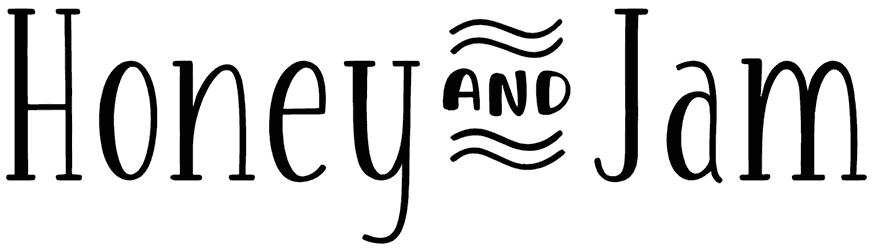
Honey & Jam Font
The Honey & Jam is a classy serif font whose tall form of letters has made it eye-catching. This handwritten font has a memorable personality; you can use it for various purposes such as titles, social media posts, and posters.
The Honey & Jam font’s letters are thinner in the right part than in the left one to be more entertaining in the viewers’ sight; however, this font does not support numbers.
We’re happy to share a demo of “Honey and Jam”, our latest classy and elegant handwritten styled font with y’all! It features subtle serifs and looks good both in small letters as well as in CAPS.